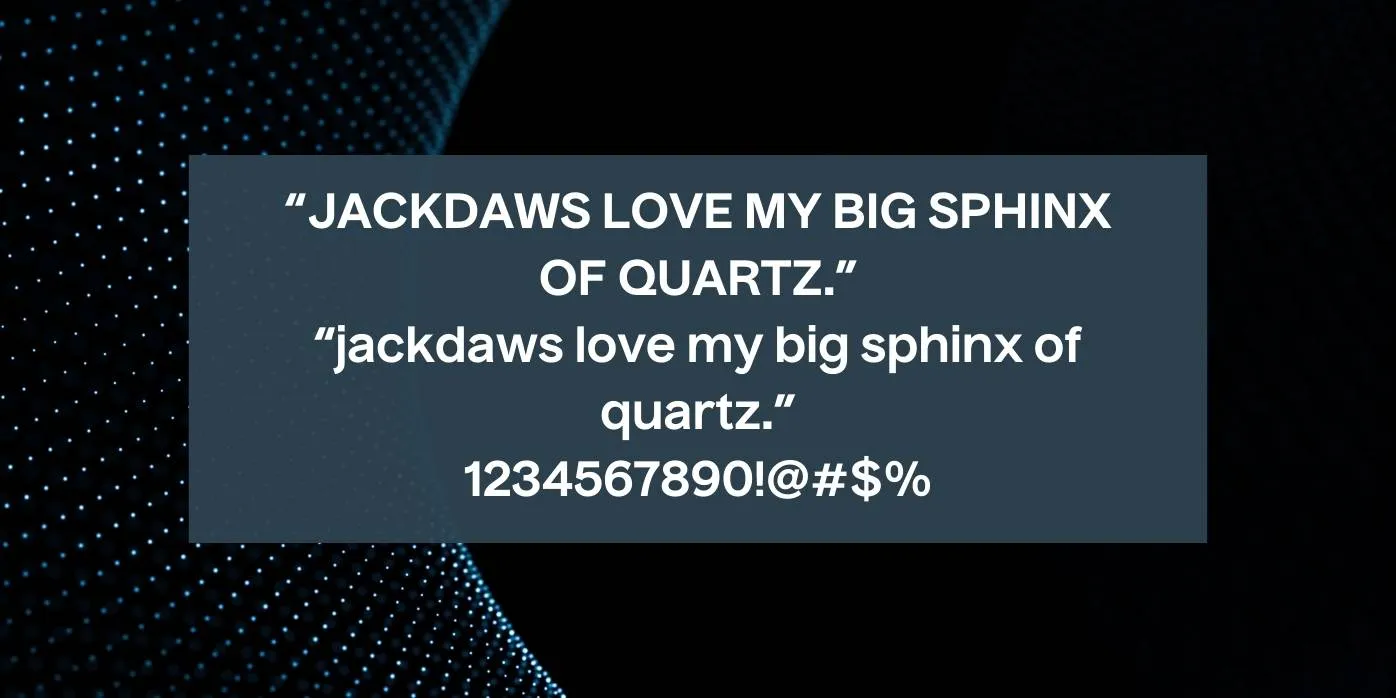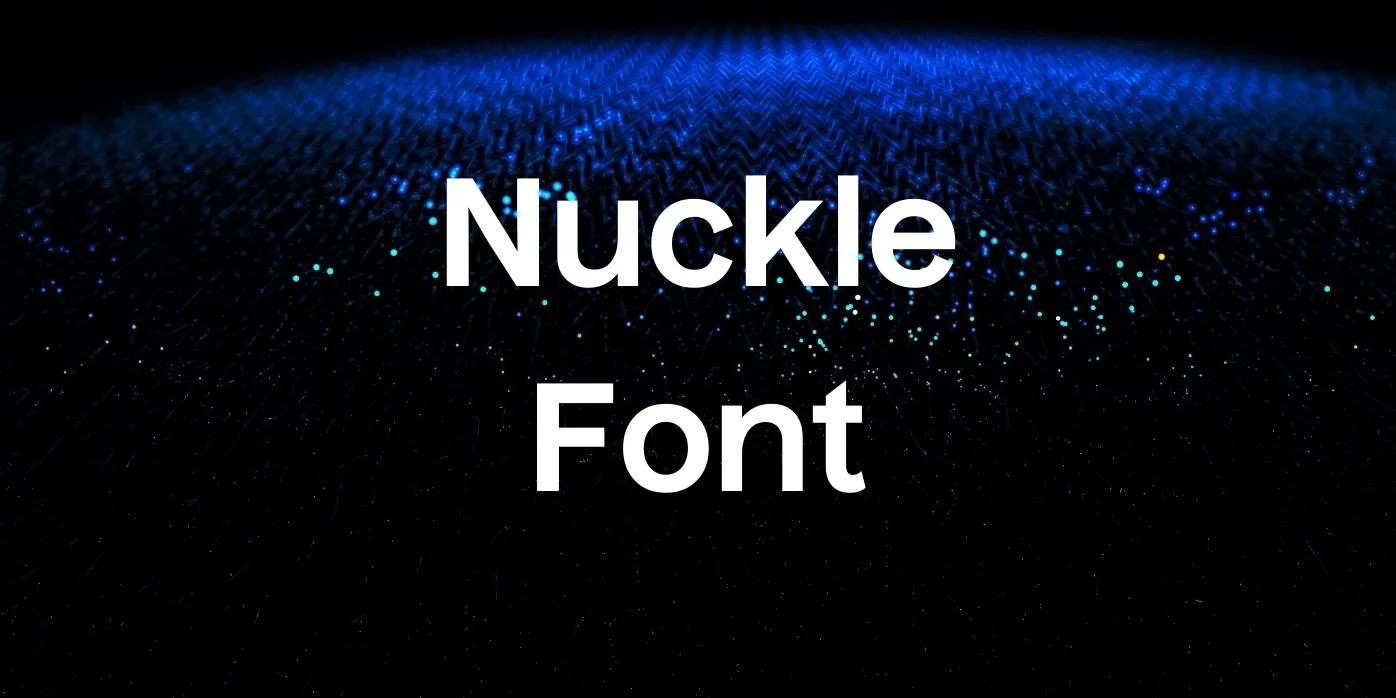
Nuckle Font
Nuckle is one of the primary heavyweight textual styles, in fact, the most seasoned one. The primary plans of this letter set showed up back in 2011, Nuckle was created normally, it is a useful font style that met the requests of particular realistic applications, for work. The starting frame was subsequently not based on a unique style in any case, especially in application in content, its potential was clear. It developed in quality, not in terms of specific letters, but basically in checking content.
The Nuckle textual style is utilized by many companies you can generate logo from it. Other employments incorporate the personality of the Paris design brand Courreges, Gerhard Richter’s presentation at the Prague National Exhibition, and the Marseille Riam Celebration. Usage A more thoughtful search around for the perfect position in this textual style category is driven by Nuckle‚Äôs clear aim to be more diverse than the mass of advanced sans-serif letter sets that refer to the same standards. It can be easily downloaded in your pc and mac.
An uneasy assignment was deciding the most property that would be particular for the font’s character and work. You check out the gill sans font for pairing. The contrast in estimate between lowercase and capitalized letters is small, which consistently puts an incredible stretch on the neatness of compliments Amid the ensuing planning of letter shapes that contribute to the character of the extensive font family, they have to increment the x-Height of the sort was distinguished, at the same time expanding the type all-comprehensiveness. Nuckle Font view Font Information Edit NameNuckle Font DesignerFilip Matějíček StyleSans Serif TypeOTF,TTF LicenseFree for personal use Download Nuckle Font Download this amazing font by clicking this button and get benefited from its unique designs.